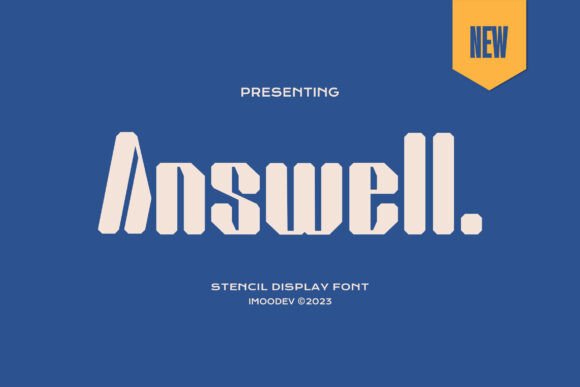
Answell Font: A Bold and Industrial Typeface for Modern Designs
The Answell font is a bold, stencil display typeface that has gained popularity among designers for its unique blend of traditional stencil aesthetics and modern design elements. With its thick, blocky characters, rounded edges, and distinct cutouts, Answell exudes a geometric and industrial look that is perfect for creating bold headlines, posters, logos, and branding materials.
Key Features of Answell Font
- Bold and Stencil Design: Answell is characterized by its bold, stencil design with thick, blocky characters that give it a rugged and industrial appearance.
- Rounded Edges: The font features rounded edges that add a touch of softness to its overall geometric look.
- Distinct Cutouts: The distinct cutouts in the characters give Answell a unique and futuristic feel.
- Consistent Weight: Answell is consistent in weight, with minimal contrast between different characters, making it perfect for bold headlines and designs.
- Alternates: The font comes with alternate characters that allow designers to customize text and create a more unique visual style.
Design Applications of Answell Font
Answell font is well-suited for a variety of design applications where a mix of traditional stencil aesthetics and modern design is desired. Some of the most popular uses of Answell include:
- Branding: Answell can be used to create bold and eye-catching logos that make a statement.
- Posters: The font is perfect for creating bold headlines and titles for posters, flyers, and brochures.
- Logos: Answell can be used to create unique and memorable logos that stand out from the crowd.
- Headlines: The font is ideal for creating bold headlines for magazines, newspapers, and online publications.
Styling Tips for Answell Font
To get the most out of Answell font, here are some styling tips to keep in mind:
- Use it boldly: Answell is a bold font, so use it to make a statement. Use it for headlines, titles, and other prominent text elements.
- Mix and match: Experiment with different character combinations to create a unique visual style.
- Pair it with simple fonts: Answell works best when paired with simple, sans-serif fonts that provide a clean and elegant contrast.
- Play with colors: Answell looks great in bold, bright colors. Experiment with different colors to find the perfect combination for your design.
Technical Specifications of Answell Font
Here are some technical specifications of Answell font:
Insights from Designers
We spoke to several designers who have used Answell font in their designs, and here’s what they had to say:
Answell font is perfect for creating bold and eye-catching designs. Its unique blend of traditional stencil aesthetics and modern design elements makes it stand out from other fonts.
I love using Answell font for my posters and flyers. Its bold and industrial look is perfect for grabbing attention and making a statement.
In conclusion, Answell font is a bold and industrial typeface that is perfect for modern designs. Its unique blend of traditional stencil aesthetics and modern design elements makes it stand out from other fonts. With its thick, blocky characters, rounded edges, and distinct cutouts, Answell exudes a geometric and industrial look that is perfect for creating bold headlines, posters, logos, and branding materials.